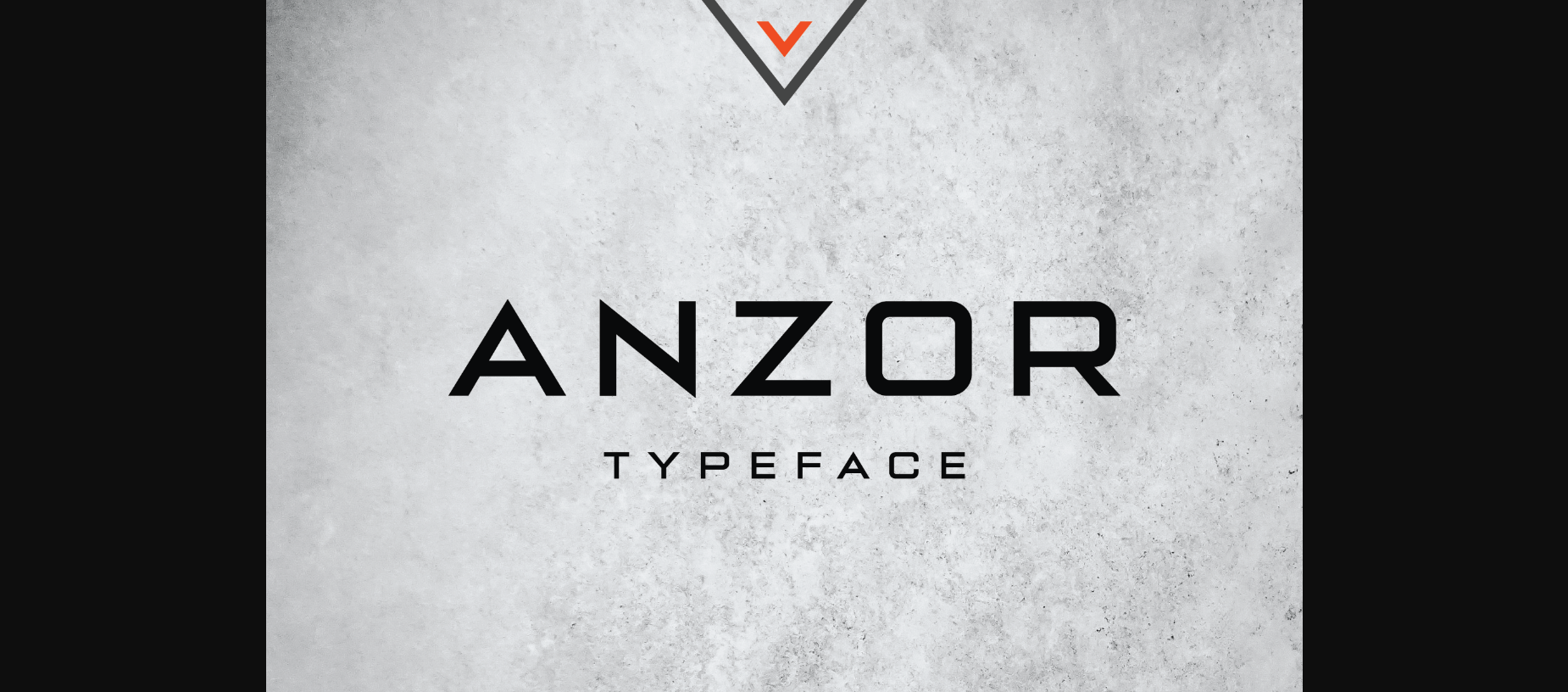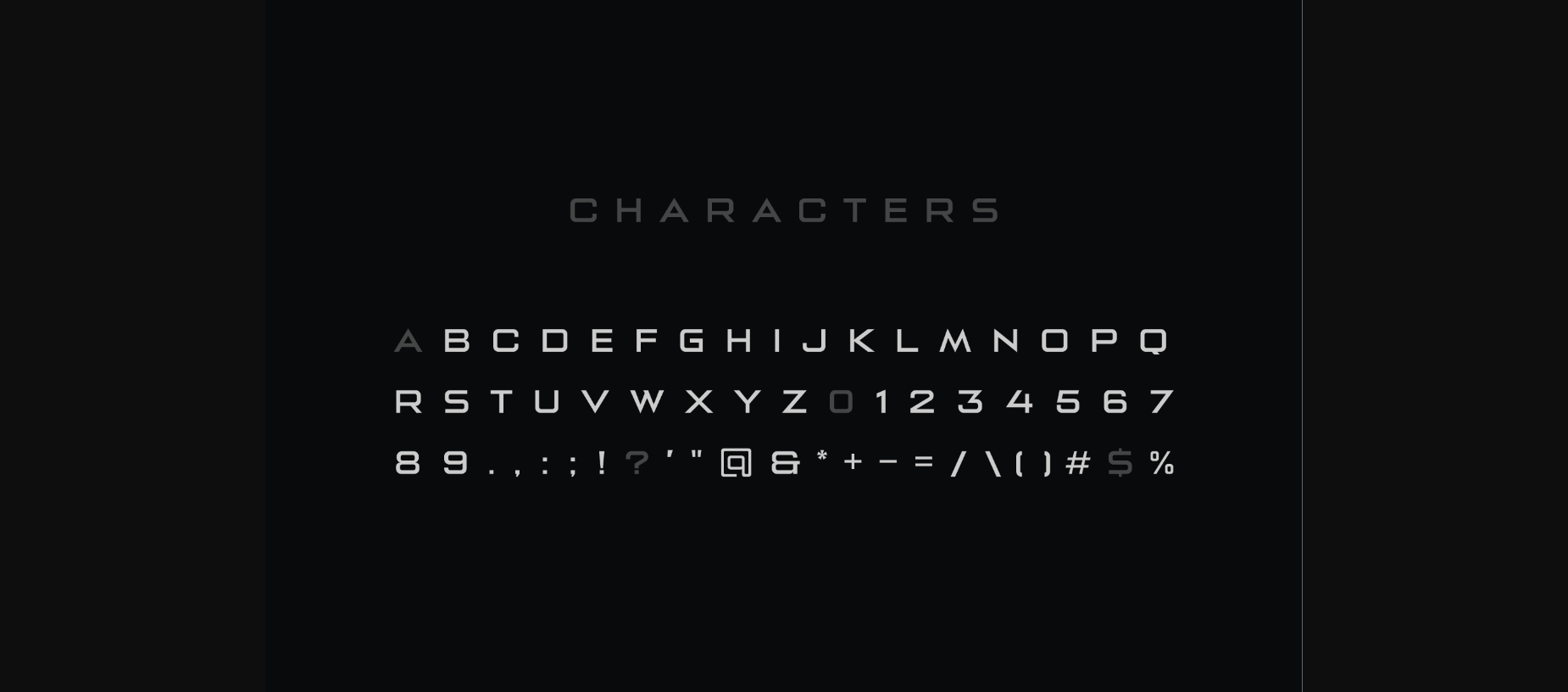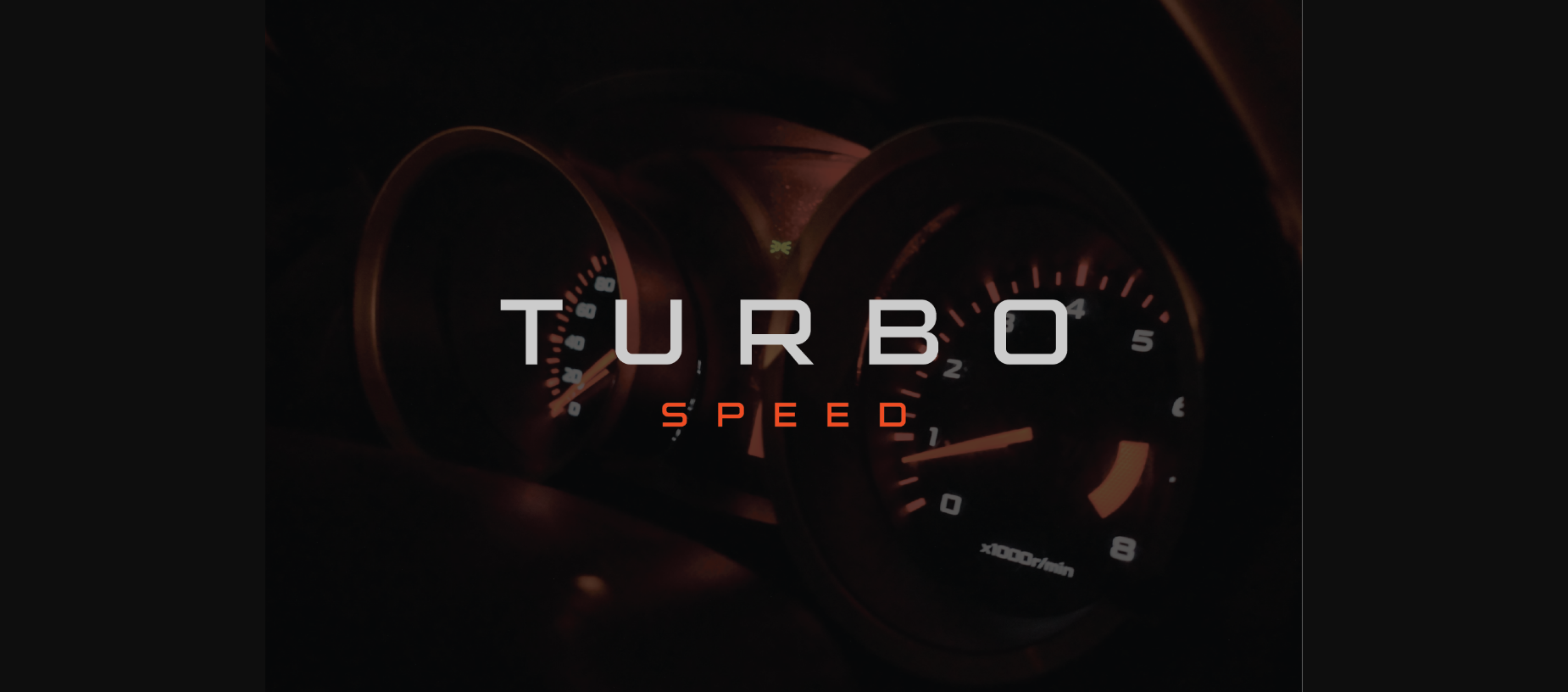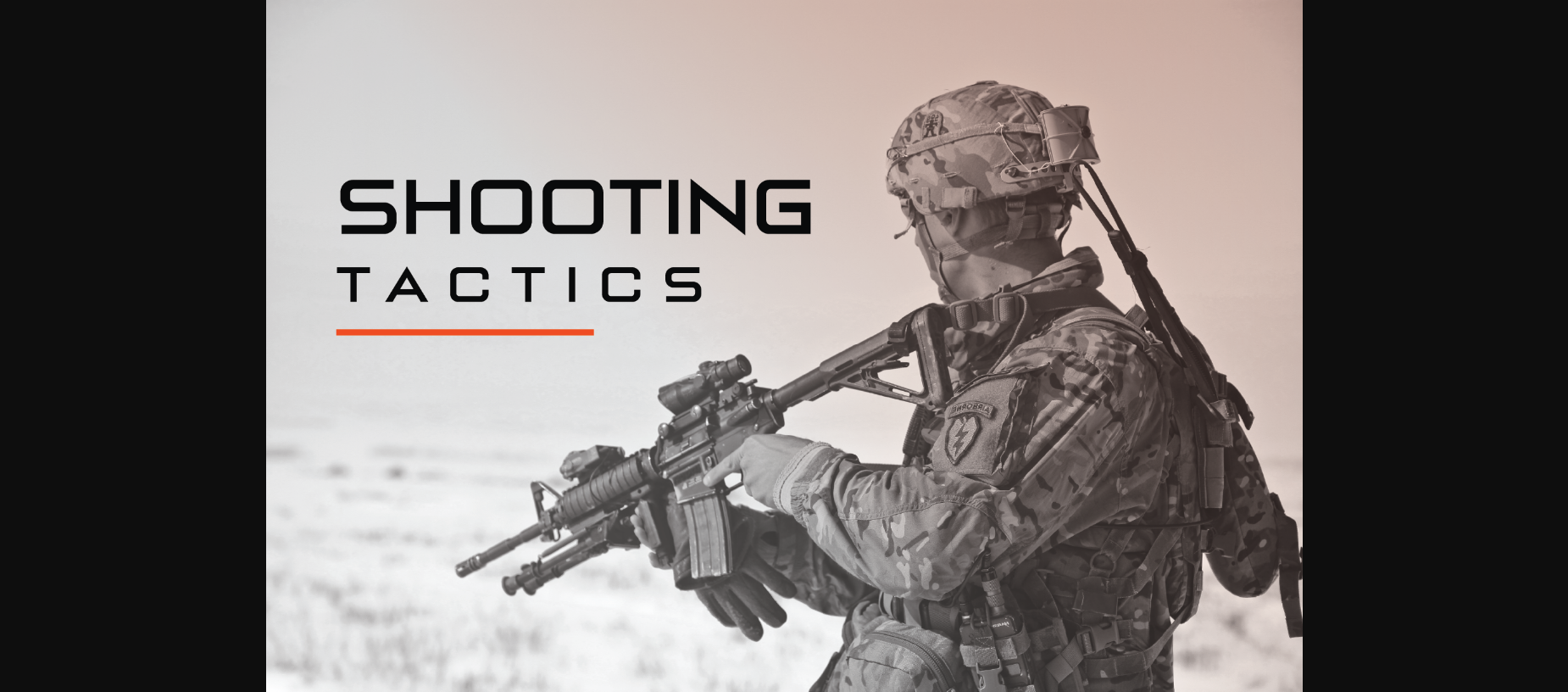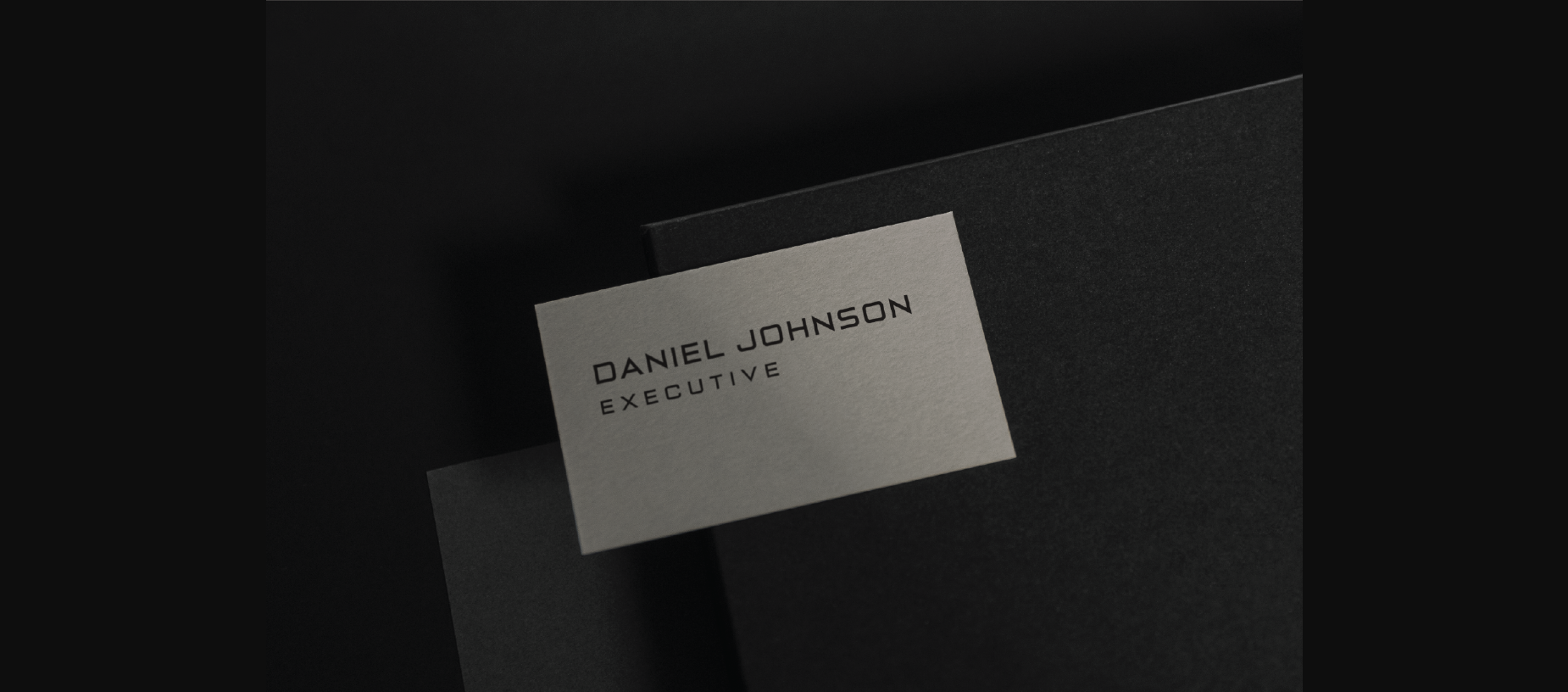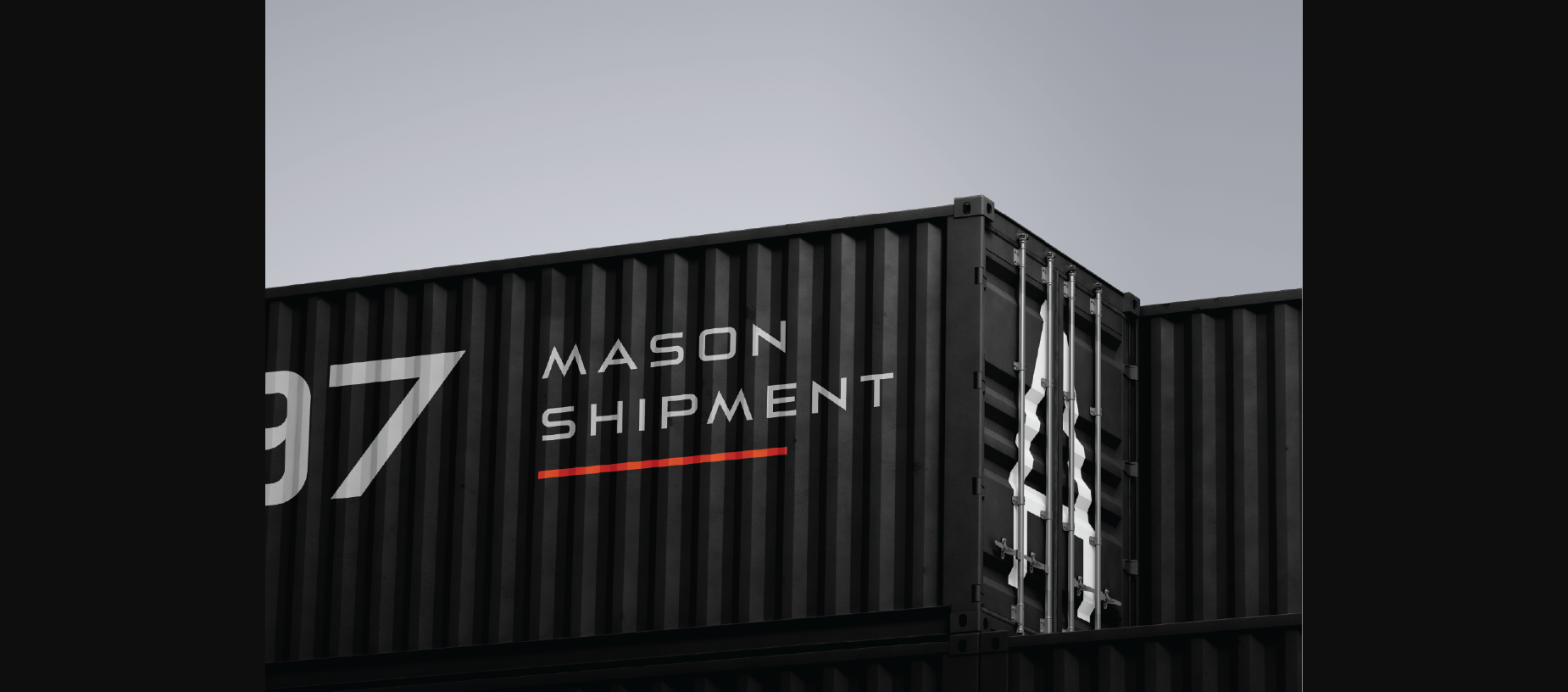
Anzor Font
About Anzor Font
Anzor is a futuristic wide font that has bold, extended characters with sharp edges that add extra boldness to your designs. Anzor font has a minimal yet masculine appearance, and is great for your projects like branding, social media posts, banners, posters, headers, and so on.